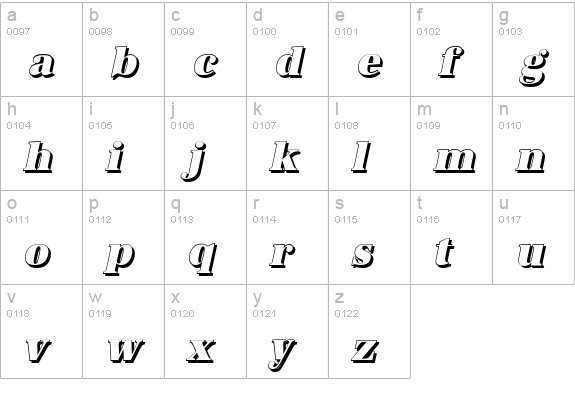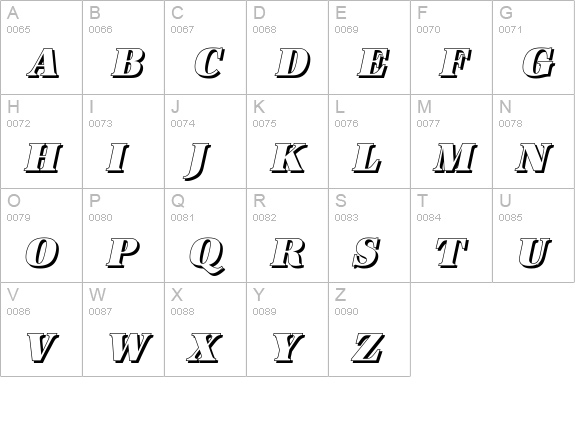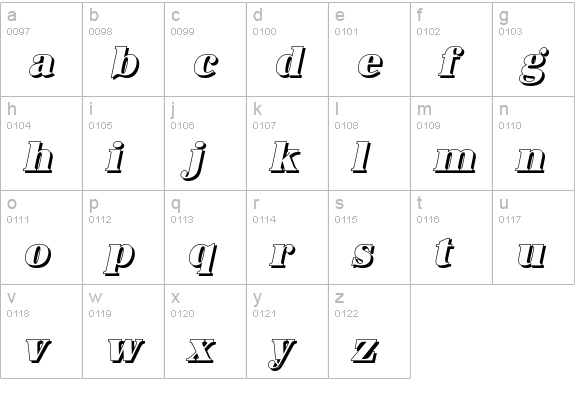
AntiquaSh-Cd-Heavy-Italic is a heavy, high-impact, italic variant in the AntiquaSh typeface family \xE2\x80\x94 well suited to high-impact headlines, posters, and display advertising.
AntiquaSh-Cd-Heavy-Italic is a beautifully crafted font that exudes elegance and sophistication. With its bold and italicized design, this font is perfect for adding a touch of class to any project or design. The sharp serifs and heavy weight of the letters make a strong and powerful statement, while the subtle curves add a touch of sophistication. What makes AntiquaSh-Cd-Heavy-Italic even more appealing is that it is available for free download at FontsMarket.com. This means that you can easily access this stunning font and use it in your projects without any cost. Whether you are designing a poster, creating a logo, or working on a branding project, AntiquaSh-Cd-Heavy-Italic is sure to make a lasting impression. Download it today and elevate your designs with this exquisite font.